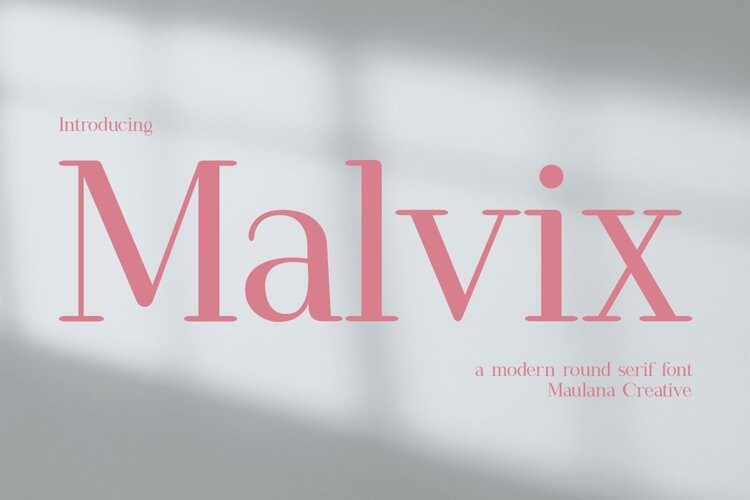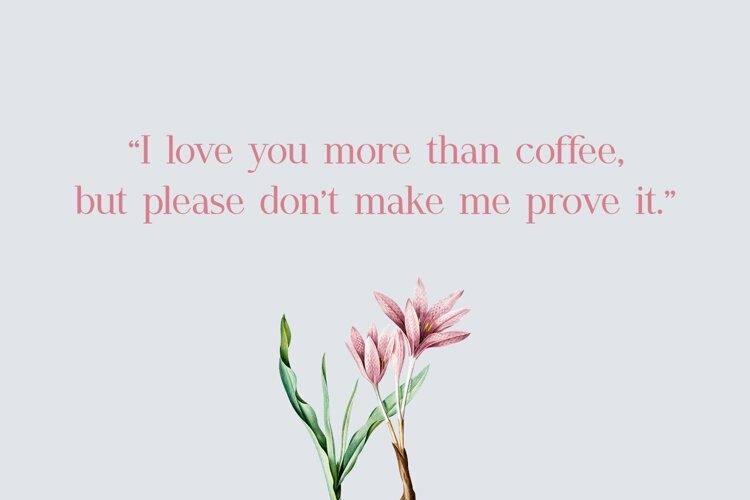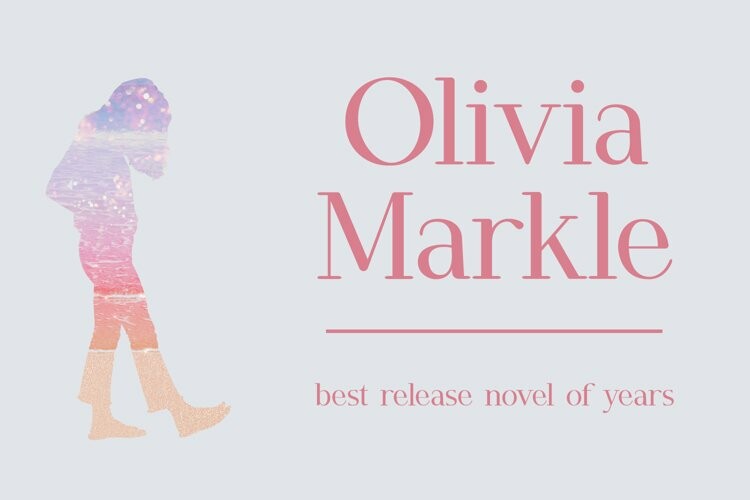
Malvix Font
Malvix FontMalvix is a modern serif font. With medium high contrast stroke, fun character with a bit of ligatures and alternates. To give you an extra creative work. Malvix font support multilingual more than 100+ language. This font is good for logo design, Social media, Movie Titles, Books Titles, a short text even a long text letter and good for your secondary text font with sans or serif. Make a stunning work with Malvix font.